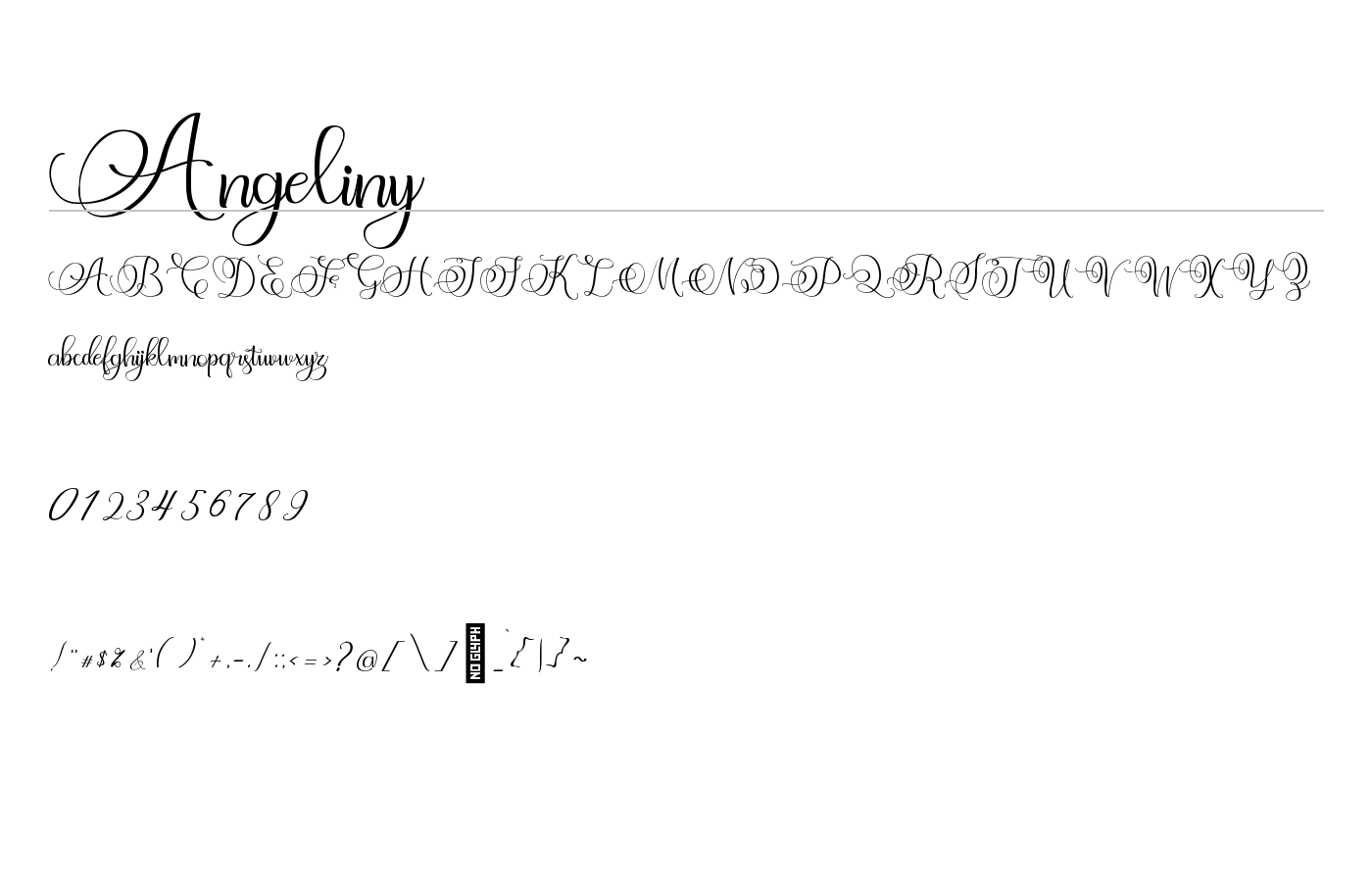
Angeliny is an elegant script font characterized by its delicate, flowing strokes and elaborate swirls, creating a sophisticated and luxurious feel. With its fine, high-contrast lines and intricate uppercase flourishes, it is perfect for wedding invitations, branding, and high-end packaging where a graceful and refined touch is desired. This font works best in display use, adding a sense of romance and elegance to logos and headlines.
Angeliny Font
About Angeliny Font
| Font family | Angeliny Font |